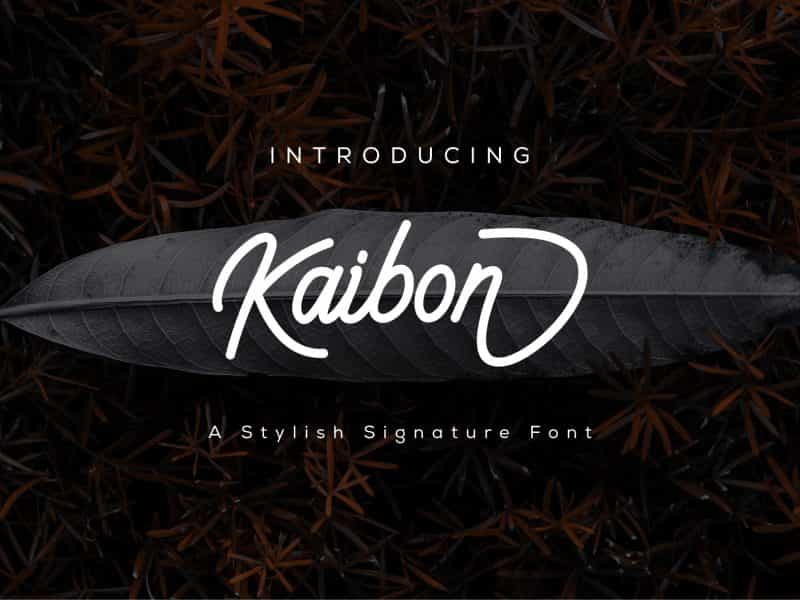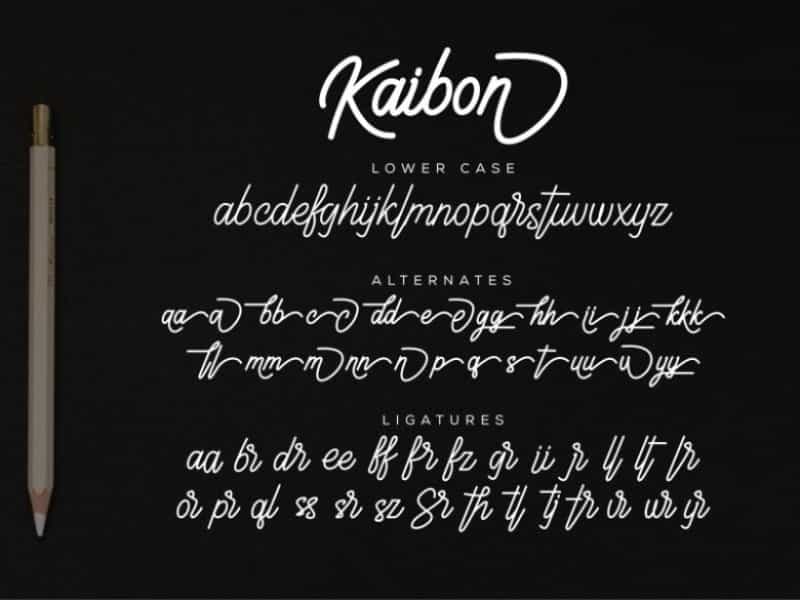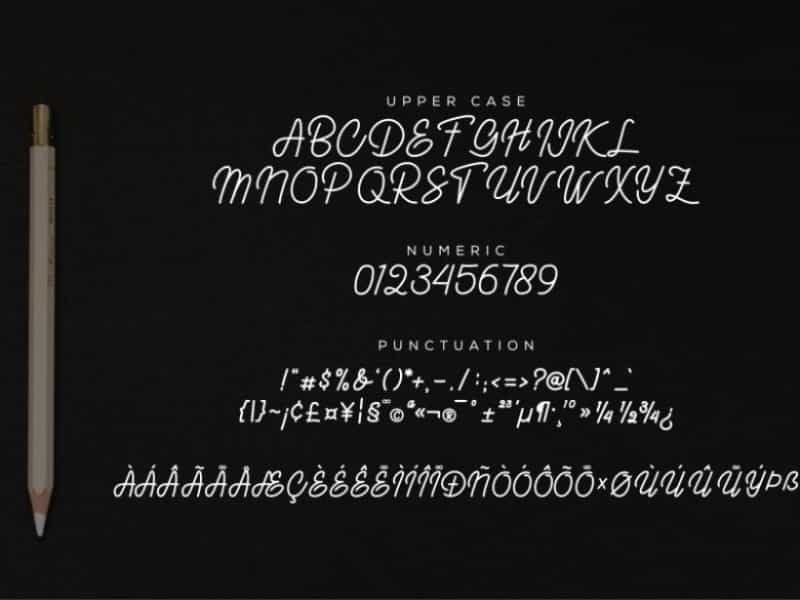
Kaibon is a contemporary and stylish signature font with an elegantly feminine touch. It is the best for branding, logo, wedding invites, magazines, quotes, posters and signature.